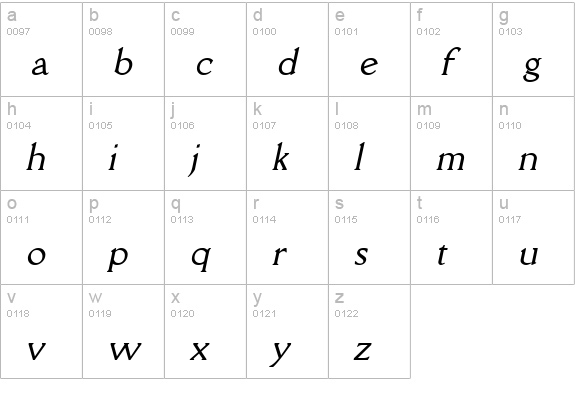
Rory Italic is a distinctive, italic variant in the Rory typeface family \xE2\x80\x94 well suited to design and typography projects.
Rory Italic font is a stylish and modern typeface that exudes elegance and sophistication. Its sleek and slanted design adds a touch of flair to any project, making it perfect for branding, invitations, and more. The graceful curves and sharp angles of Rory Italic create a contemporary look that is both eye-catching and versatile. Best of all, Rory Italic is available for free download at FontsMarket.com. You can easily add this beautiful font to your collection without any cost, allowing you to enhance your designs with a touch of class without breaking the bank. Don't miss out on the opportunity to elevate your projects with the exquisite Rory Italic font, now accessible for free at FontsMarket.com.